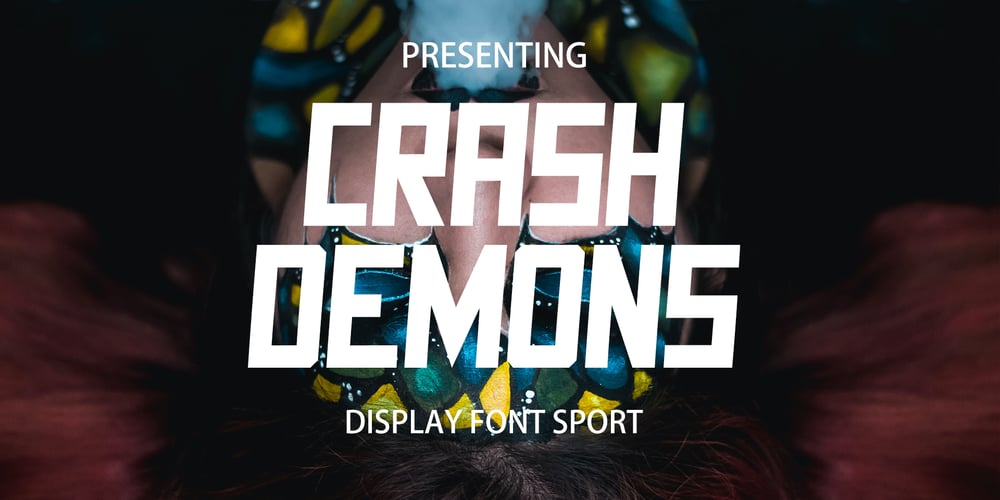
Crash Demons Font Family was designed by Afri Giani and published by Gian Studio. Crash Demons contains 1 styles and family package options. About ProductCrash Demons, Display Typography is an elegant modern variable font. It’s basically Sans with a touch of serif to each letter. A Simplicity yet very legible with various widths and weights that you can explore, combine, create and help you design things.Language Support: English, French, German, Indonesian, Irish, Italian, Low German, Norwegian, Portuguese, Swedish, Swiss German.Thank you.